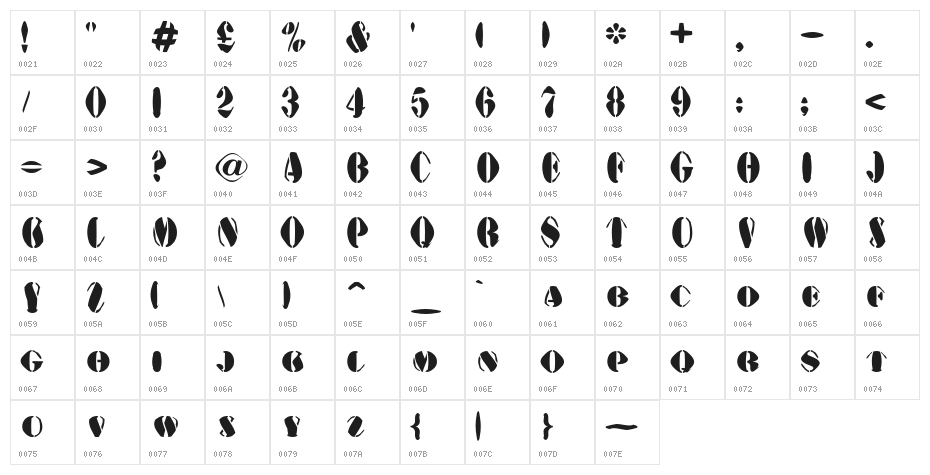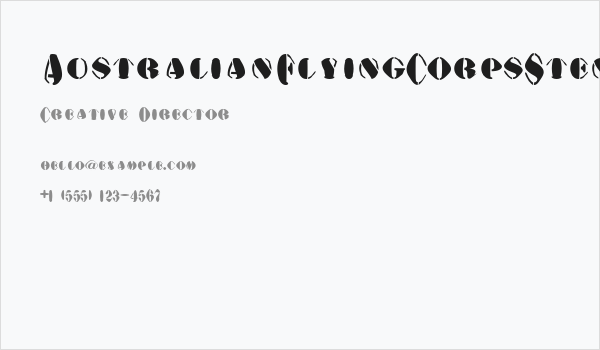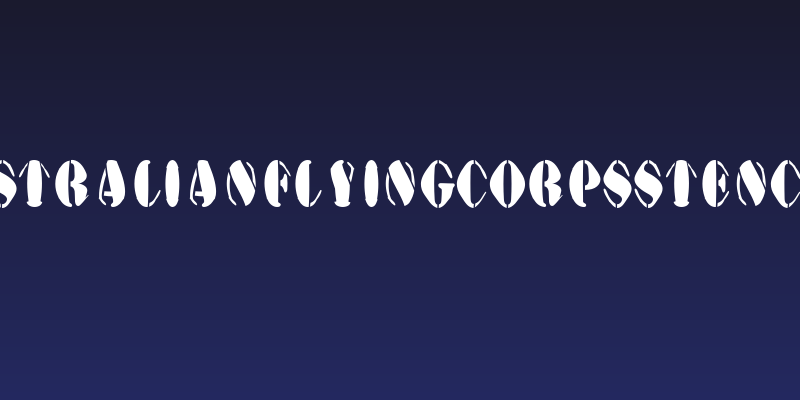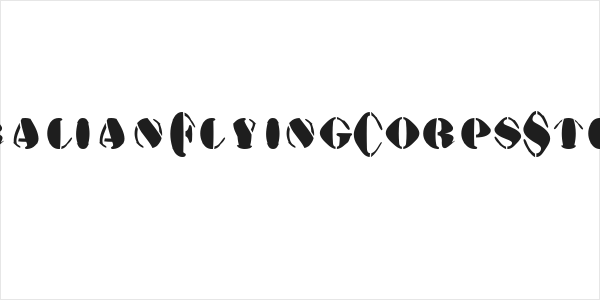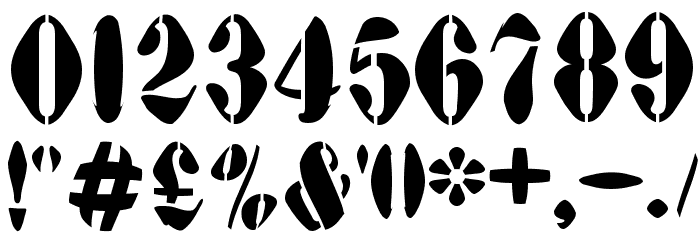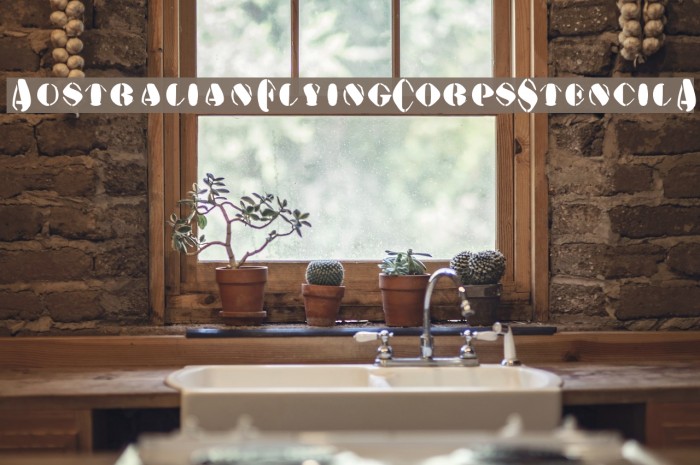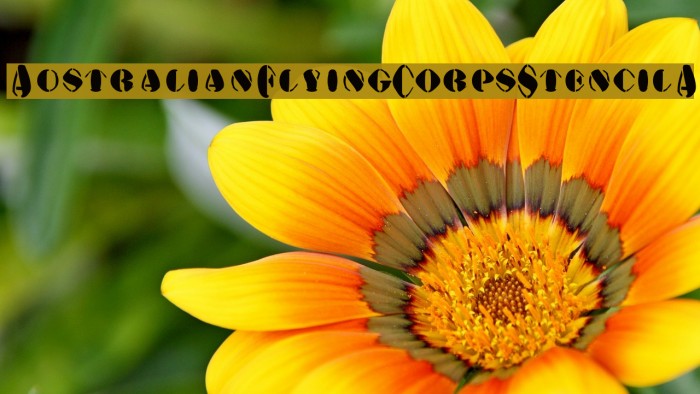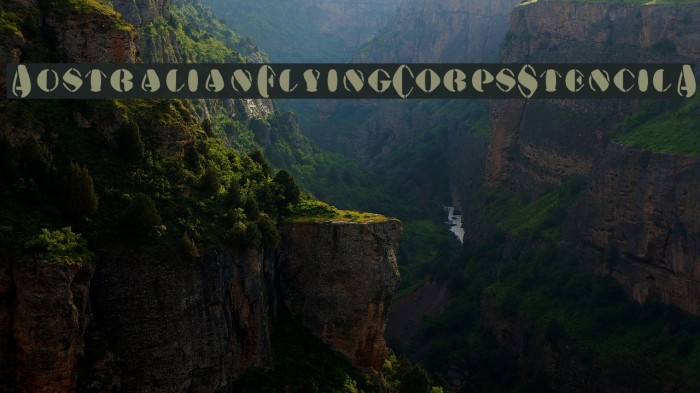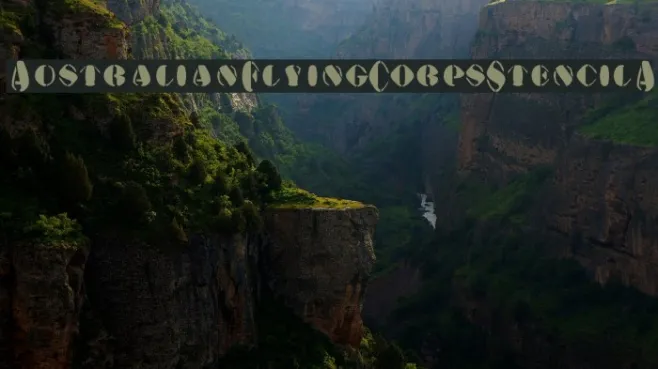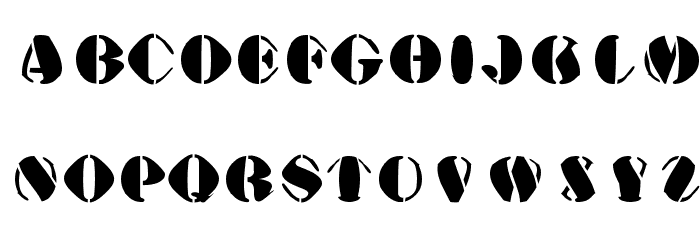
AustralianFlyingCorpsStencilA Font
AustralianFlyingCorpsStencilA Description
This font features a bold, stencil-like design with distinct gaps in each character, reminiscent of military or industrial stencils. The uppercase and lowercase letters maintain a consistent style, with rounded edges and a geometric structure. The numbers and special characters follow the same design principles, ensuring uniformity across the font. The boldness of the strokes and the unique cut-out sections give it a rugged and utilitarian appearance, making it ideal for projects that require a strong, impactful visual statement.
| Overall Style | Industrial, Rugged |
| Use Case | Headlines, Logos, Signage |
| Proposed Projects | Ideal for military-themed designs, industrial branding, posters, and signage requiring a strong, bold presence. |